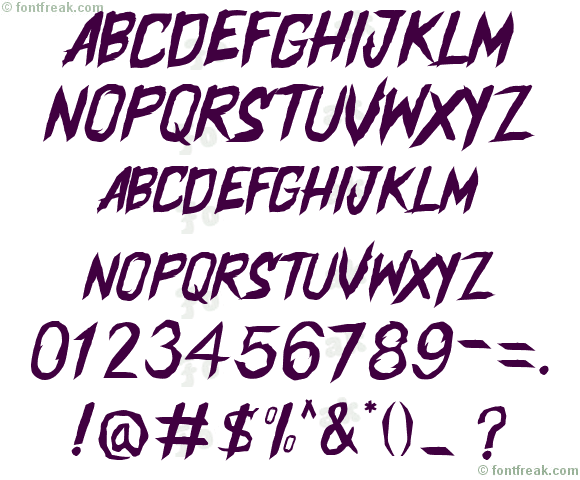
Halloween Night
The Halloween Night font by MaknaStudio is a striking display typeface that captures the spirit of Halloween with its playful yet edgy design. This decorative font features sharp, angular strokes that evoke a sense of eeriness, making it perfect for themed projects. The varying stroke weight creates a dramatic contrast, enhancing its overall visual impact. With its slightly irregular spacing and jagged edges, the Halloween Night font exudes a sense of movement, reminiscent of flickering shadows on a haunted night.
Ideal for a variety of creative applications, this font shines in use cases such as Halloween party invitations, spooky movie posters, and seasonal marketing materials. Its unique characteristics also make it a great choice for themed restaurant menus, where it can add an element of fun and excitement. Graphic designers looking to infuse their projects with a touch of whimsy will find this font particularly appealing, while small business owners can leverage its distinctive style to attract customers during the Halloween season.
In a sea of standard typefaces, the Halloween Night font stands out not only for its aesthetic appeal but also for its versatility. Whether you're designing a haunted house flyer or a playful social media post, this font captures attention and sets the mood, making every project a little more magical.